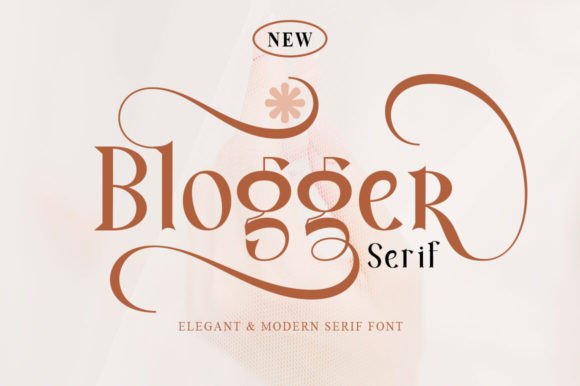
Step into the world of elegance and sophistication with Blogger Font, a captivating serif font crafted to elevate your creative expression.
Unleash the beauty of typography with Blogger Font and its timeless appeal. Designed with meticulous attention to detail, this font exudes an air of classic charm that will leave a lasting impression. Whether you're a blogger, a designer, or simply someone who appreciates the art of lettering, Blogger Font is the perfect addition to your digital toolbox.
With its graceful curves and delicate serifs, Blogger Font brings a touch of refinement to your designs. Its versatility extends across various applications, making it a font of choice for blog headers, posters, wedding invitations, book covers, business cards, and countless other creative projects.
Visualize your Instagram bio transformed with Blogger Font, where every word carries a story and captivates your audience. Its elegant lines and sophisticated structure lend a touch of professionalism that will set you apart from the crowd. Let Blogger Font be your voice, conveying your thoughts and ideas with grace and impact.
Create stunning marketing materials with Blogger Font and watch your brand shine. From brochures and flyers to social media graphics and presentations, this font will elevate your messaging and leave a lasting impression on your customers. Its timeless style effortlessly blends with diverse design aesthetics, ensuring that your brand identity remains consistent and visually appealing.
Blogger Font is more than just a font; it's an invitation to explore the boundless possibilities of creativity. Embrace the artistry of typography and let Blogger Font guide you towards creating designs that are both visually stunning and emotionally resonant.
Join the ranks of creative professionals who have discovered the allure of Blogger Font. Experience the joy of transforming words into works of art and captivate your audience with every design you create.
Discover the magic of Blogger Font today and unlock the full potential of your creative vision.